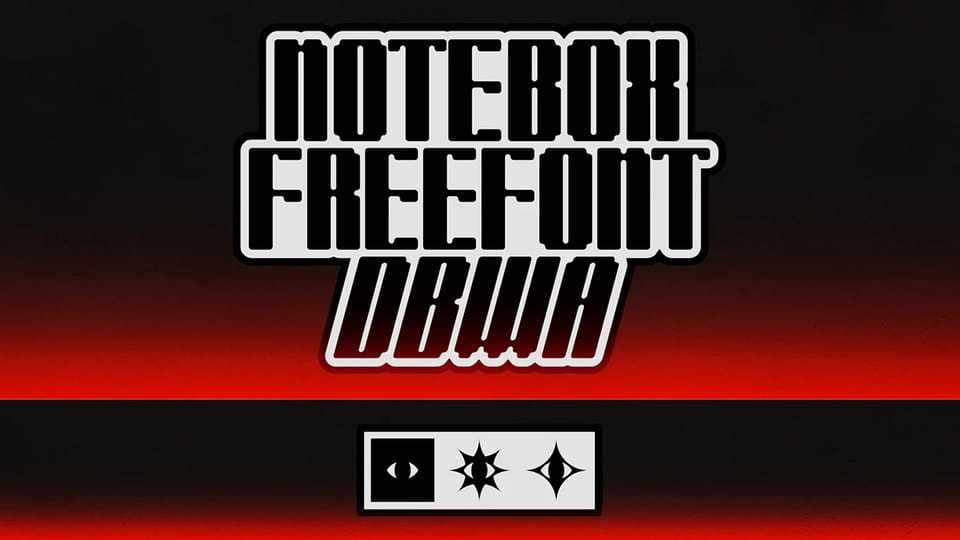
Download Notebox font, a compact pixel-inspired display typeface designed to deliver maximum visual impact in minimal space. Built on a structured grid system, this bold, condensed font merges retro digital aesthetics with contemporary graphic design needs.